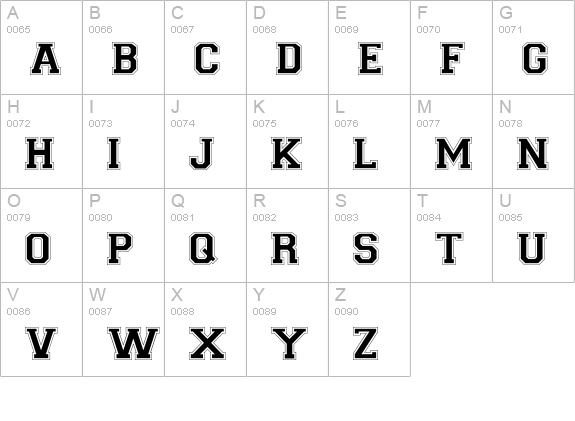
Petzingete-Norm Font Details
Introducing the Petzingete-Norm font, a captivating typeface that effortlessly combines elegance and versatility. With its sleek and refined design, this font is perfect for adding a touch of sophistication to any project. Whether you're designing a logo, creating eye-catching headlines, or crafting stylish invitations, Petzingete-Norm is the ideal choice to make your text stand out. What sets Petzingete-Norm apart is not only its impeccable aesthetics but also its remarkable accessibility. This font is available for free, allowing designers, creatives, and enthusiasts alike to enjoy its beauty without any restrictions. With Petzingete-Norm, creativity knows no bounds. Downloading this font is a breeze, as it can be found on FontsMarket.com, a reputable platform that offers a wide range of high-quality fonts. Simply visit the website and explore the vast collection of fonts, including Petzingete-Norm. Once downloaded, you can easily incorporate this font into your designs and witness how it elevates your projects to new levels of excellence. The Petzingete-Norm font exudes a sense of timeless elegance. Its clean lines and graceful curves give a sense of sophistication, making it suitable for various design purposes. Whether you're working on branding, packaging, or editorial projects, Petzingete-Norm will effortlessly enhance the visual aesthetics and leave a lasting impression on your audience. With its extensive character set, Petzingete-Norm supports multiple languages, ensuring that your message can be effectively communicated to a global audience. Its versatility extends to various design styles, from modern and minimalistic to classic and traditional. This font truly adapts to your creative vision, adding a touch of refinement to every project. In conclusion, Petzingete-Norm is more than just a font – it's a powerful tool that allows you to express your creativity freely. Its availability as a free download on FontsMarket.com makes it easily accessible to everyone. Embrace the elegance and versatility of Petzingete-Norm and unlock a world of possibilities for your design projects.